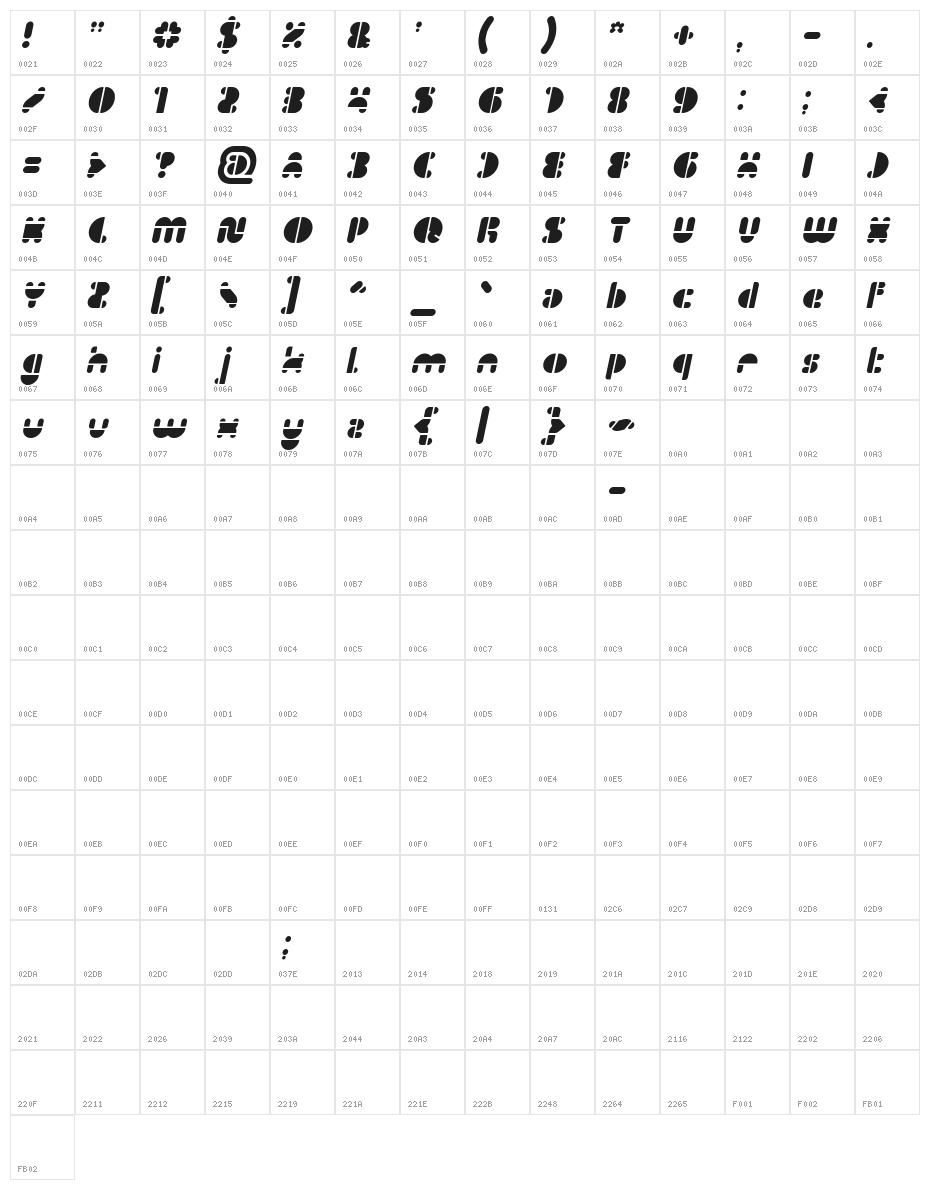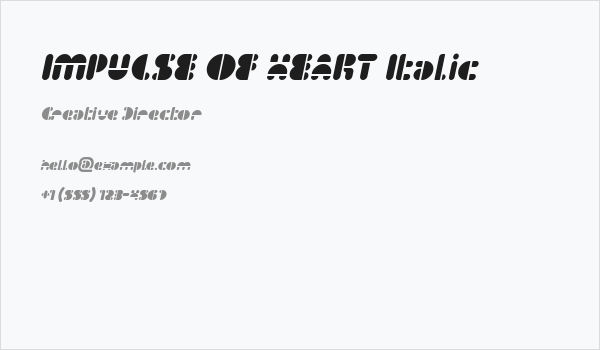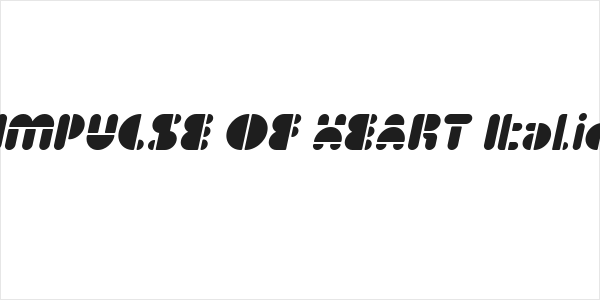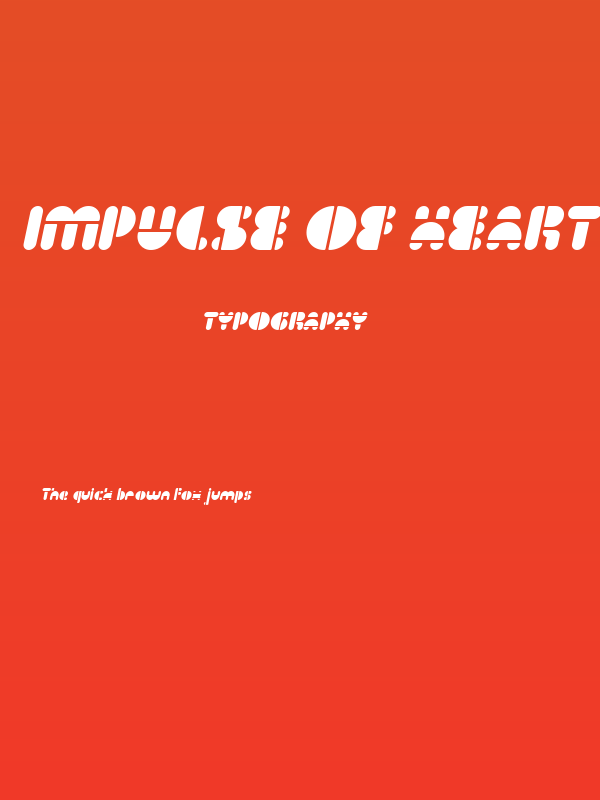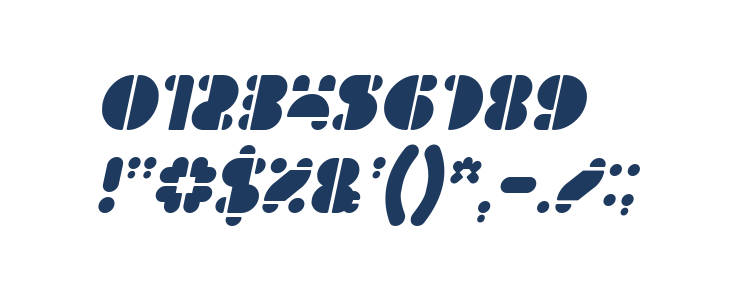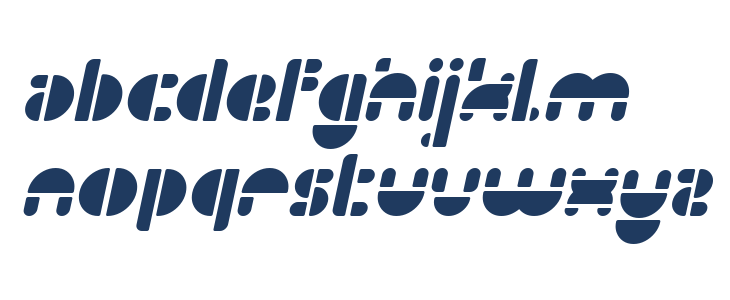
IMPULSE OF HEART Italic Font
IMPULSE OF HEART Italic Description
This font features a bold and modern design with a unique stencil-like appearance. Each character is composed of solid, rounded shapes with strategic cutouts, creating a dynamic and eye-catching effect. The uppercase and lowercase letters maintain a consistent style, with the lowercase letters slightly more compact. The numerals and special characters follow the same design principles, ensuring uniformity across all glyphs. This font's distinct style makes it ideal for creative and contemporary projects where a strong visual impact is desired.
| Proposed Projects | Ideal for branding, posters, album covers, and any project requiring a modern, artistic touch. |